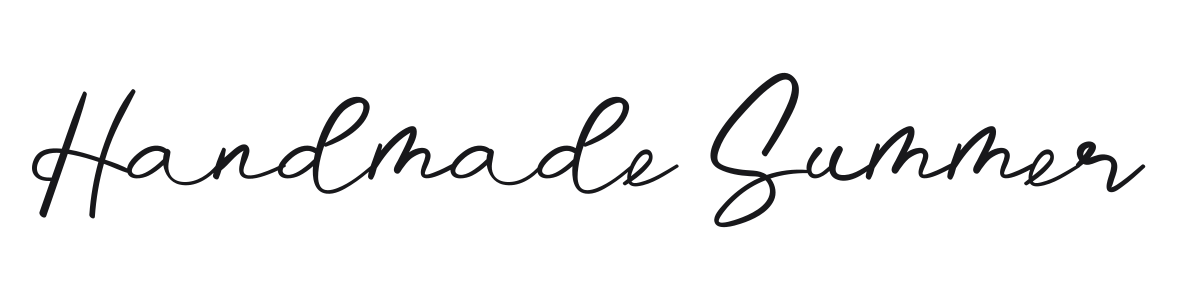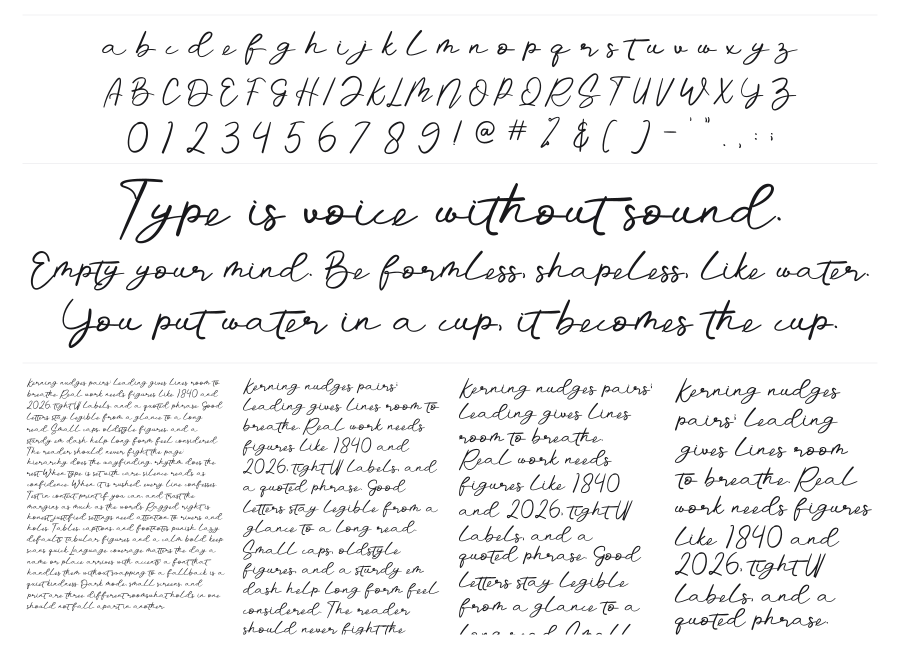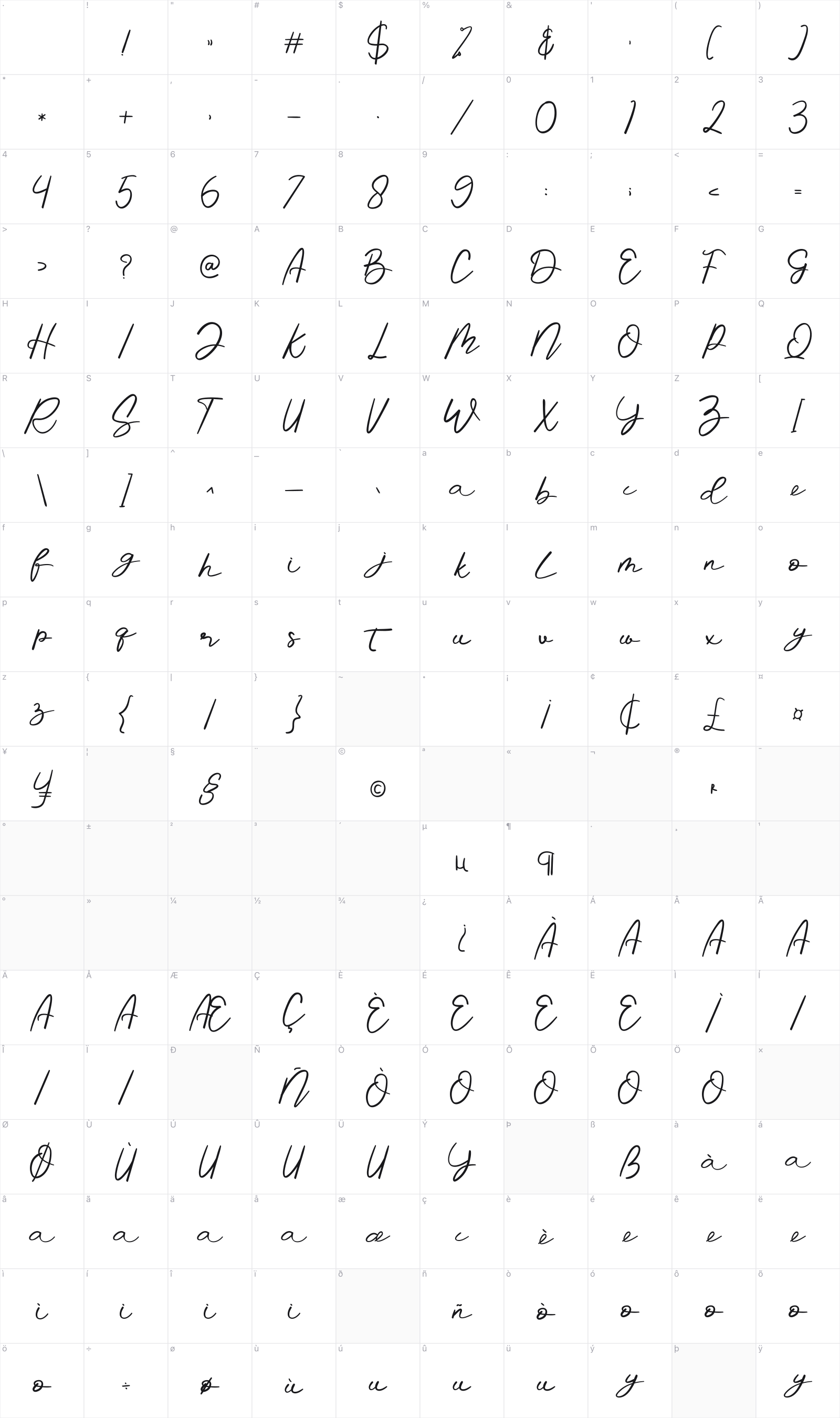
Handmade Summer
Handmade SummerLicense is a flowing casual script with a natural ink-pen rhythm and loose, connected strokes. Long sweeping connectors and looping ascenders give it an easy, breezy personality that suits warm-weather branding, social media graphics, and lifestyle packaging. It feels genuinely handwritten rather than constructed.